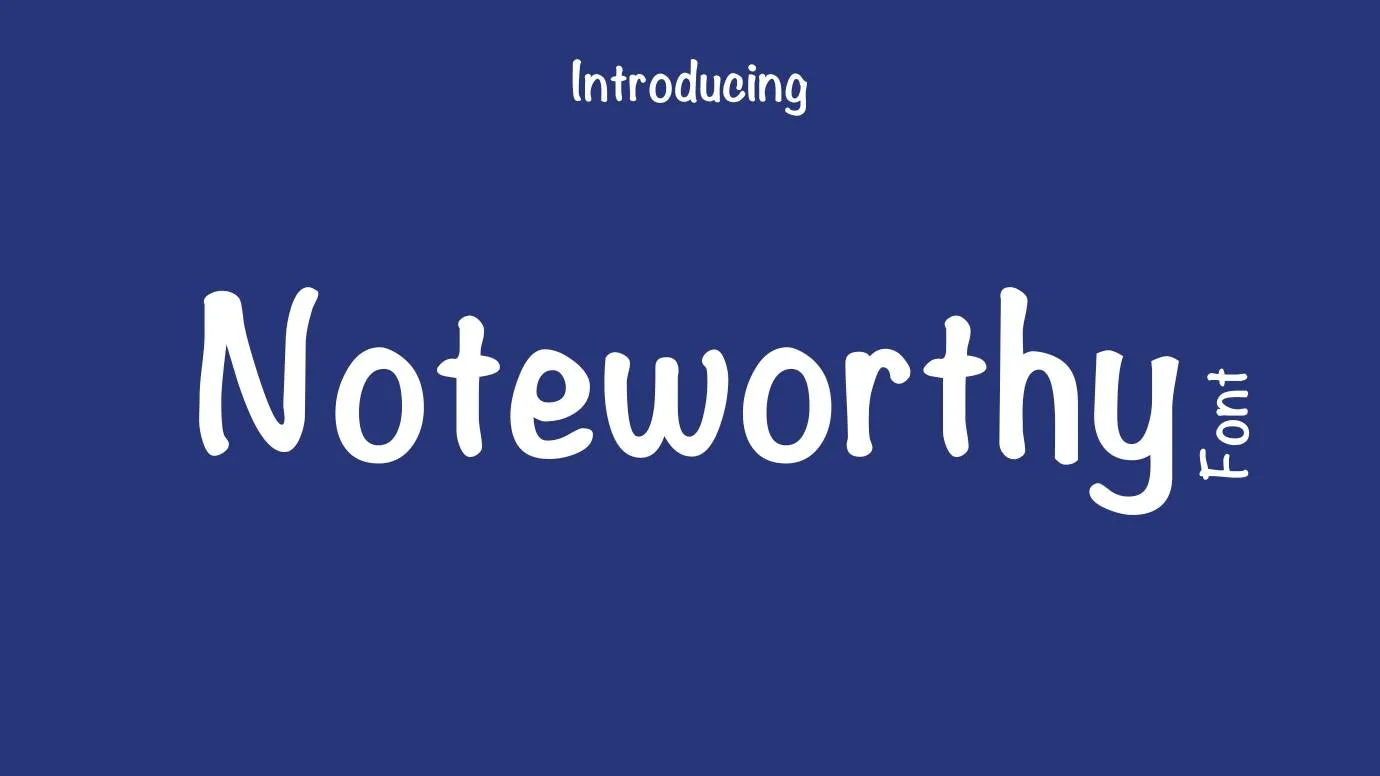
Noteworthy Font Family is a highly elegant font collection named Noteworthy font, part of the handwritten font category. This font features easily readable letters that add distinct clarity to any design work. In 2011, Miss Emily Spadoni, a renowned female graphic designer, was responsible for its development.
It is suitable for numerous professional designs such as branding projects, stationeries, products, printing, and display designs.
NameNoteworthy Font
DesignerEmily Spadoni
StyleHandwritten
Date Released2011